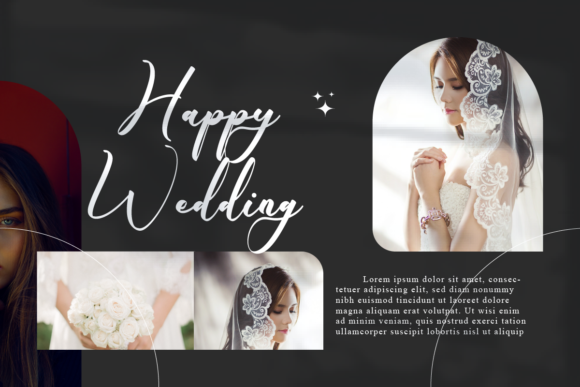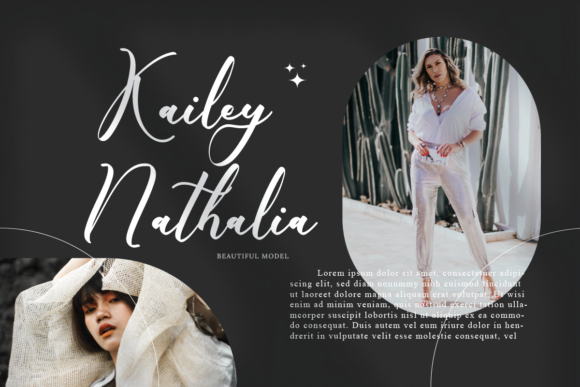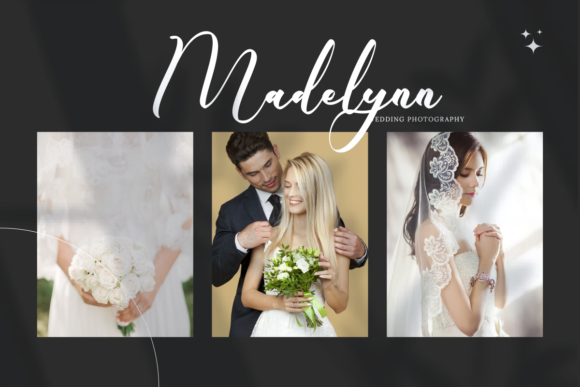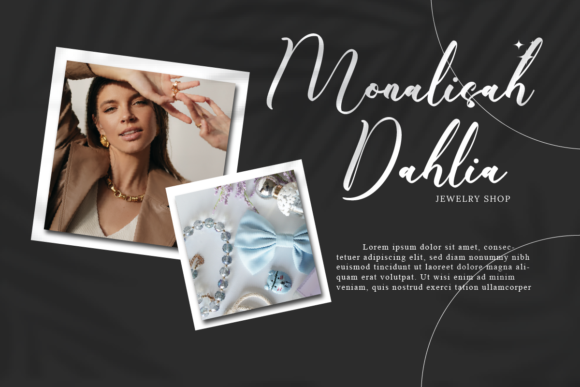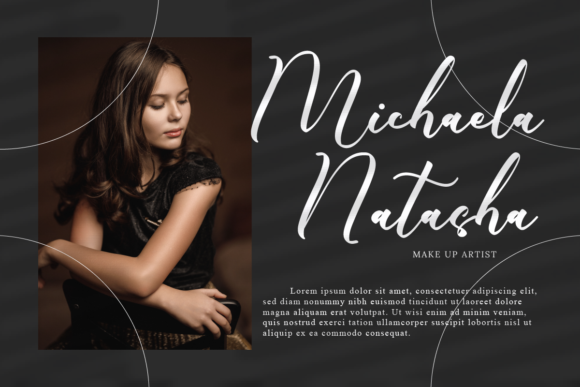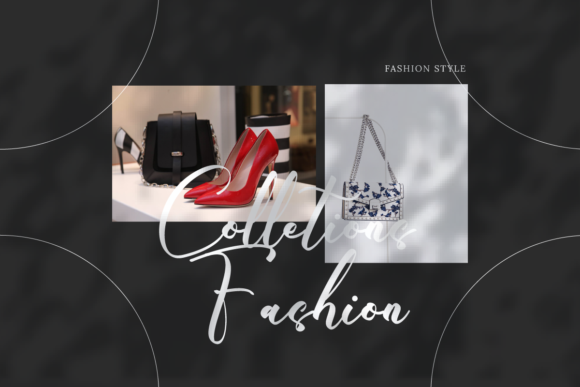
Introduction to Krista Nathalia Font
Krista Nathalia is an elegant calligraphy script.
The latest style letters are perfect for wall displays, wedding invitations, social media post logos, and any project that requires taste handwriting .
Key Features of Krista Nathalia Font
Why Choose Krista Nathalia Font?
Krista Nathalia Font offers exceptional quality and versatility, making it a valuable addition to your design toolkit. Whether you’re creating for personal projects or commercial use, Krista Nathalia Font delivers professional results.